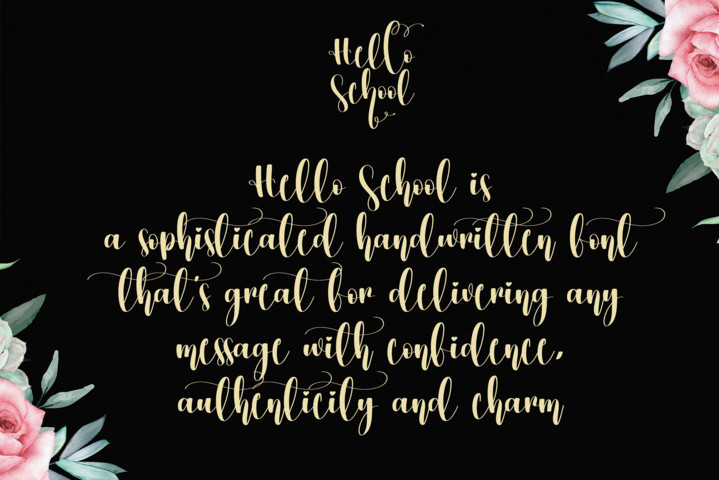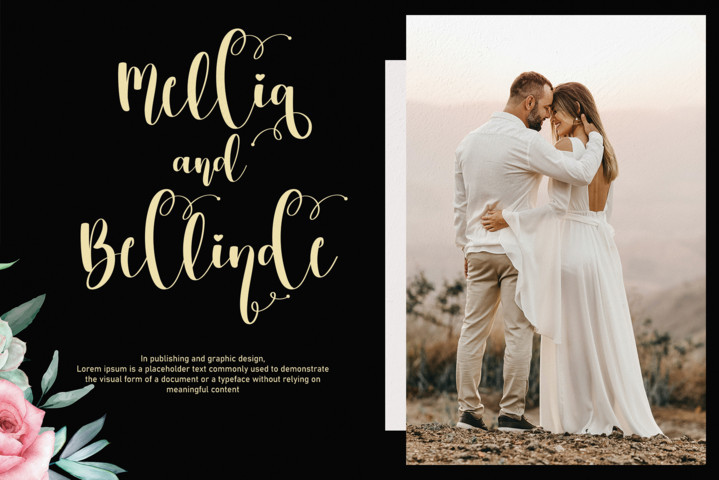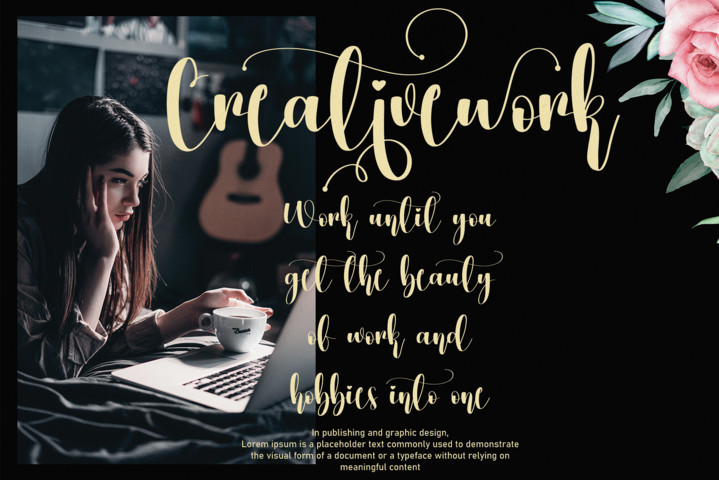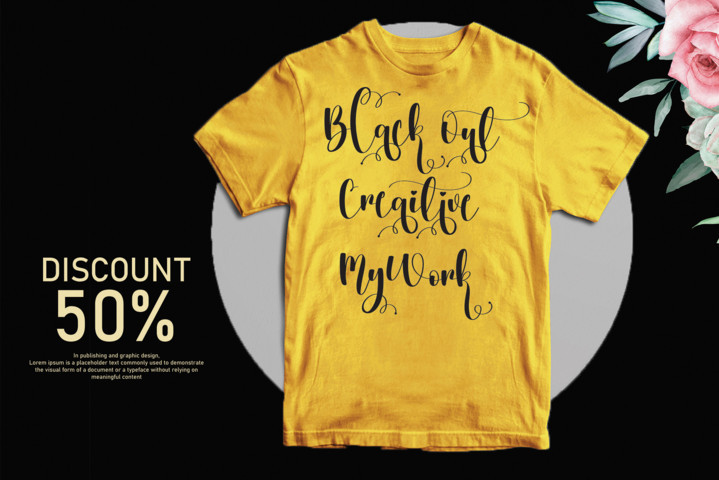
Hello School Font
Hello School Script Font
It’s an enchanting handwritten font. Trendy and stylish, this font will elevate each of your creations. Hello School is PUA encoded which means you can access all of the glyphs and swashes with ease!